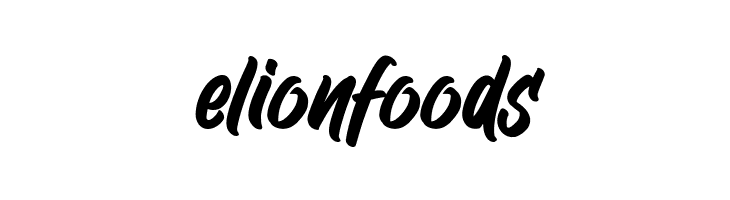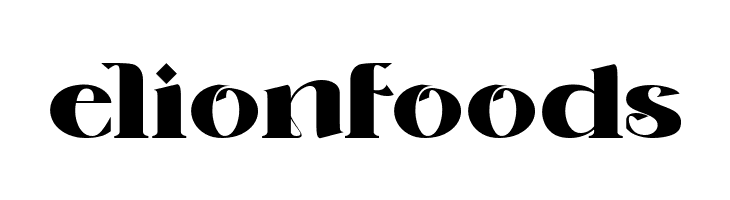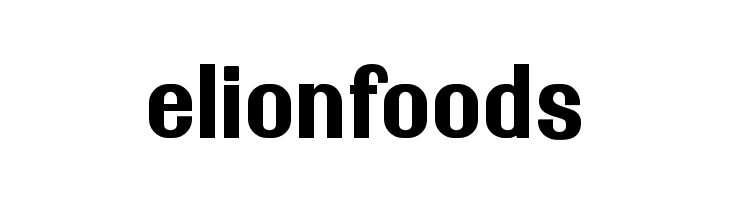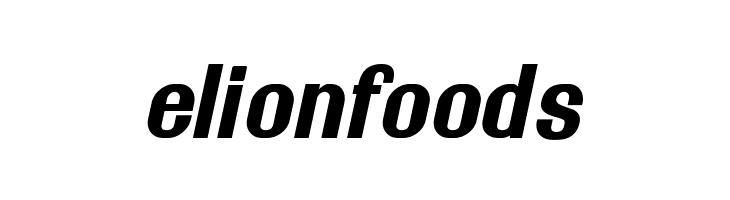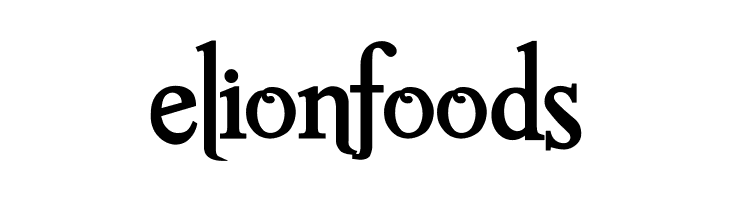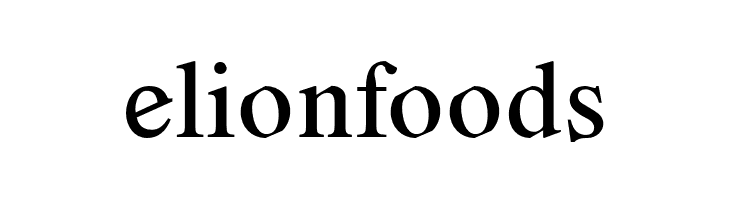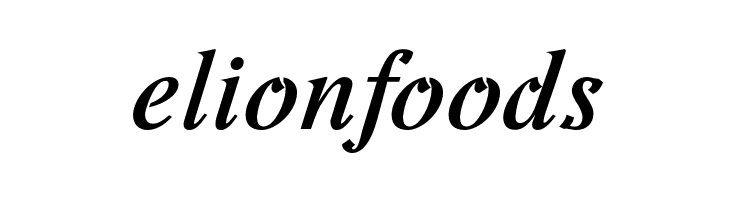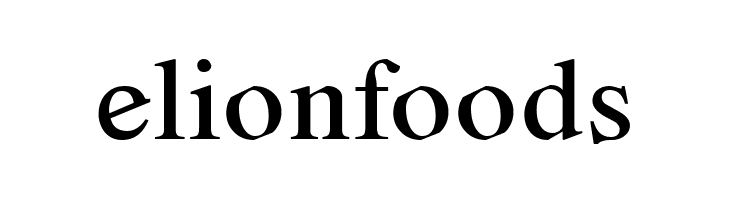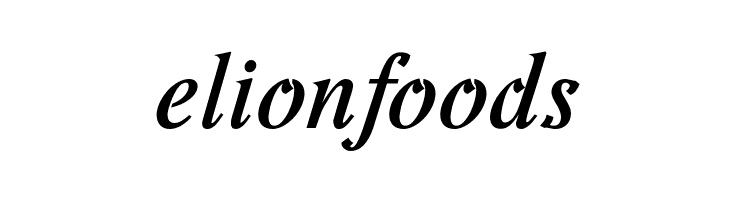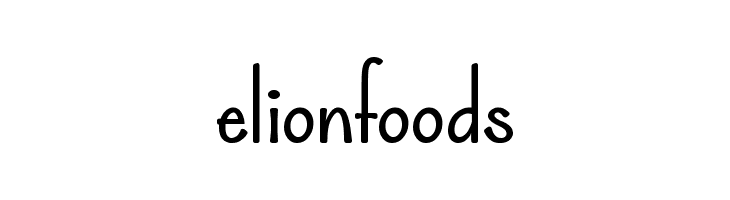
A playful, rounded font with a whimsical and informal style.
A bold, decorative font with modern geometric elements and elegant flourishes.
A bold, dynamic script font with flowing strokes and a strong visual impact.
A bold, modern typeface with clean lines and strong visual impact.
A bold, oblique font with a modern and dynamic style.
A bold, high-contrast serif font with dramatic strokes and classic elegance.
A bold, classic serif font with strong strokes and elegant proportions.
A bold, italic serif font with a classic and elegant style.
A bold, classic serif font with moderate contrast and refined serifs.
A bold, italic serif font with a classic and elegant style.